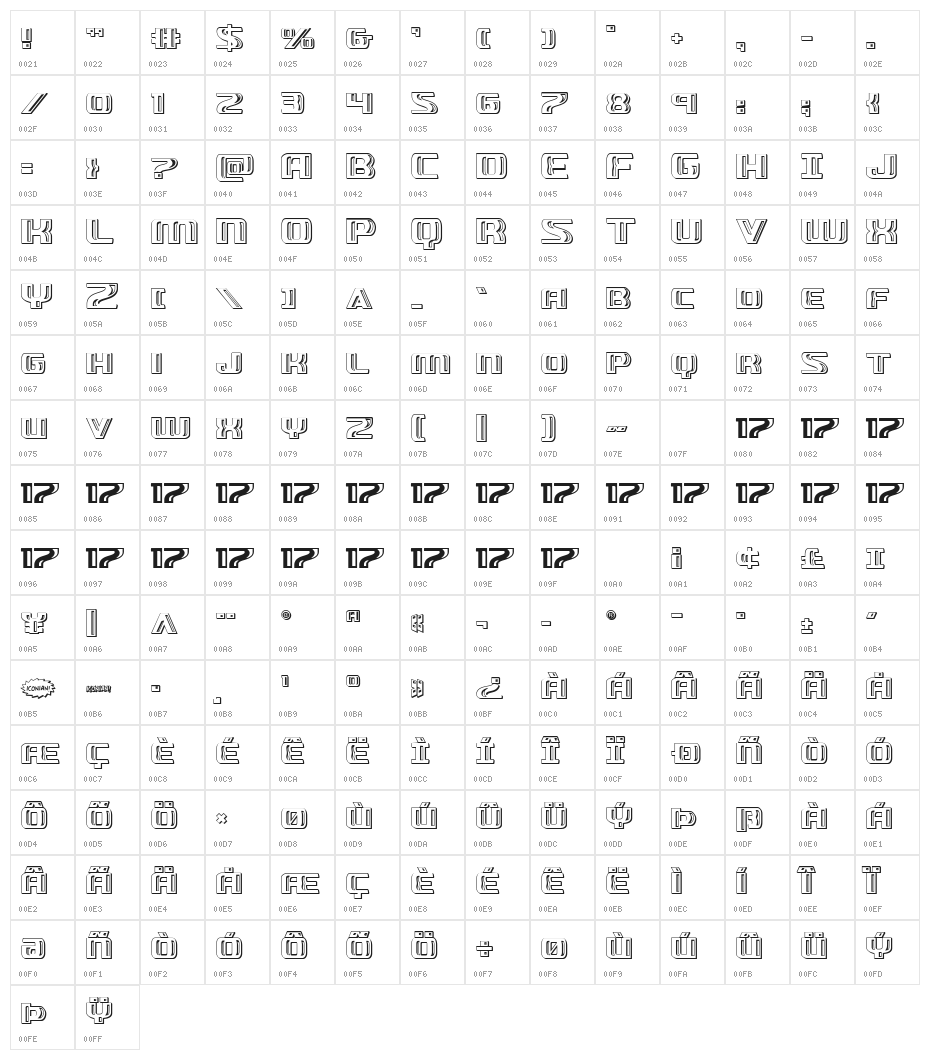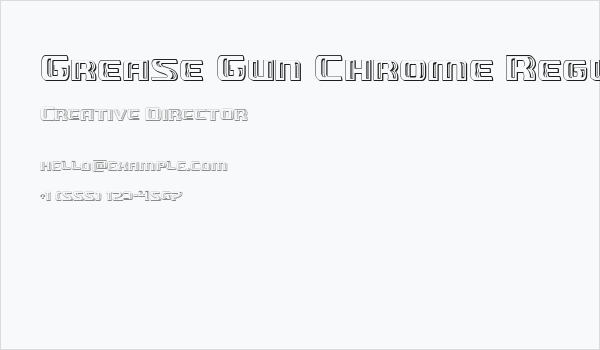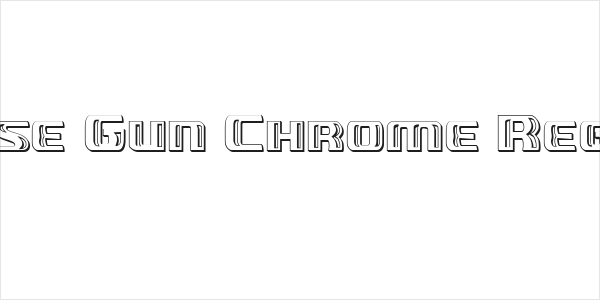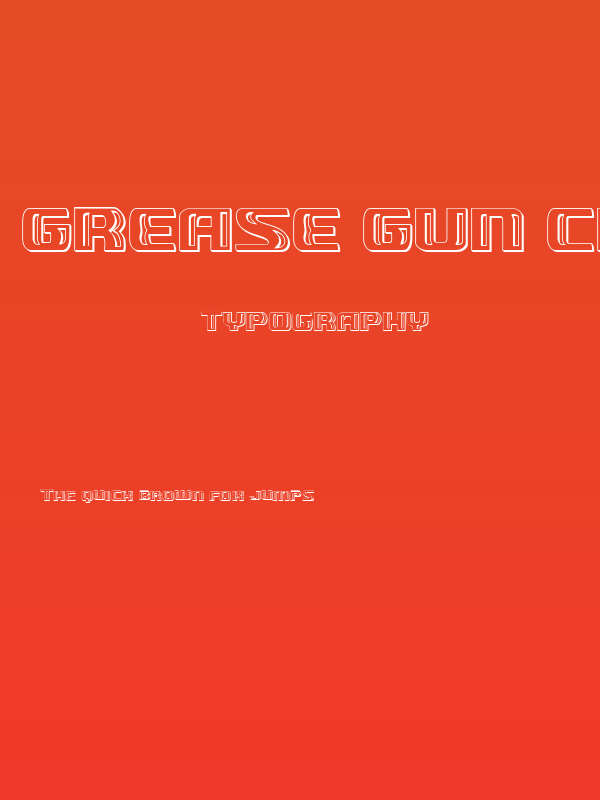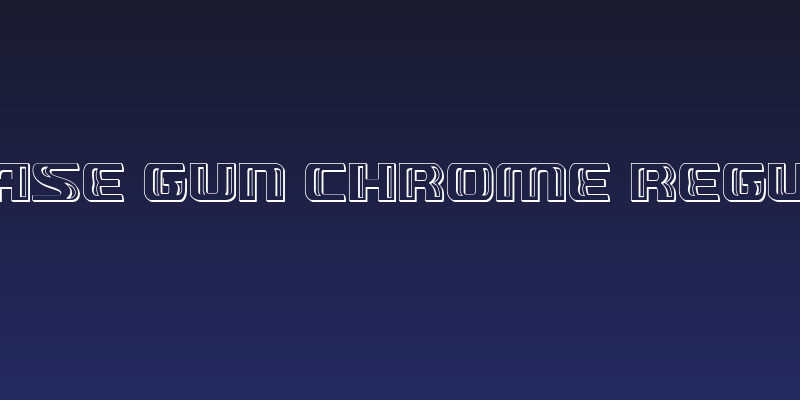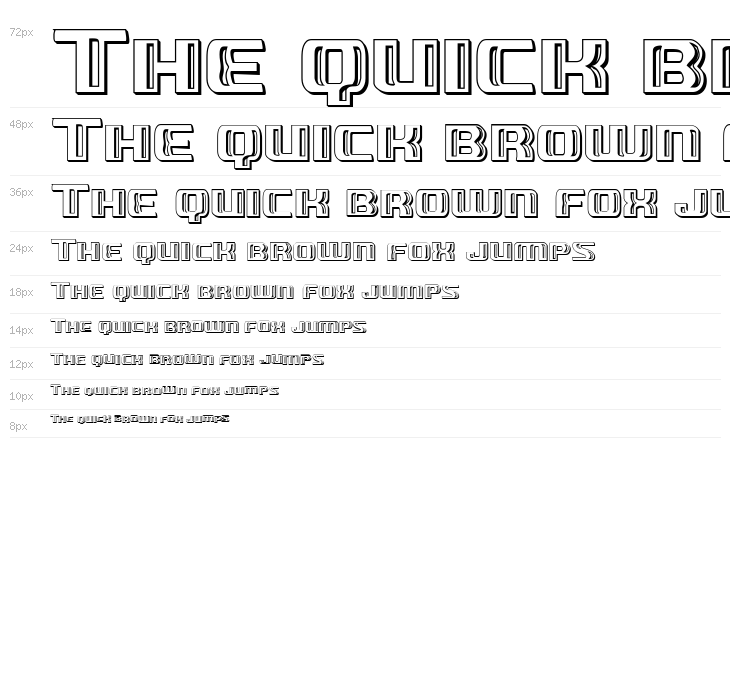
Grease Gun Chrome Regular Font
Grease Gun Chrome Regular Description
This font features a bold, industrial design with a chrome-like appearance, characterized by its three-dimensional, outlined style. The letters are uppercase and lowercase, with a consistent geometric structure that gives a sense of depth and solidity. The numbers and special characters follow the same design principles, ensuring a cohesive look across all glyphs. The font's unique style makes it stand out, with its futuristic and mechanical aesthetic, suitable for projects that require a strong visual impact.
| Proposed Projects | Ideal for branding, posters, video game graphics, and automotive-themed designs. |